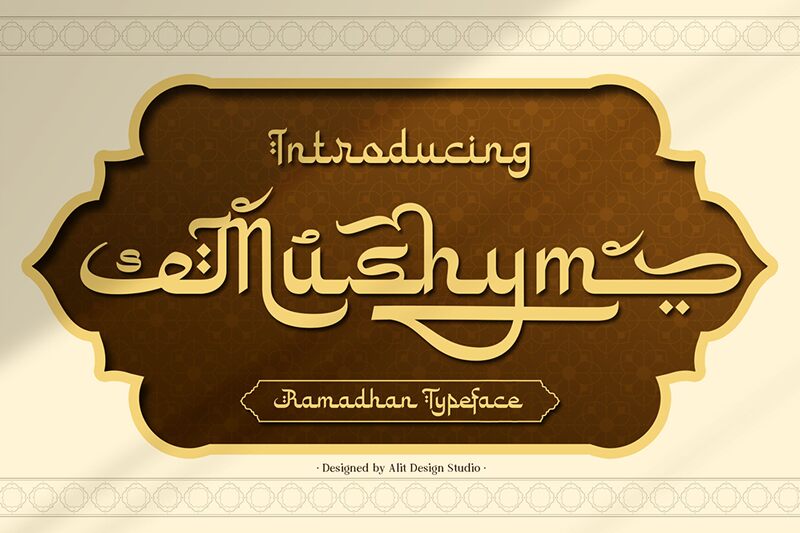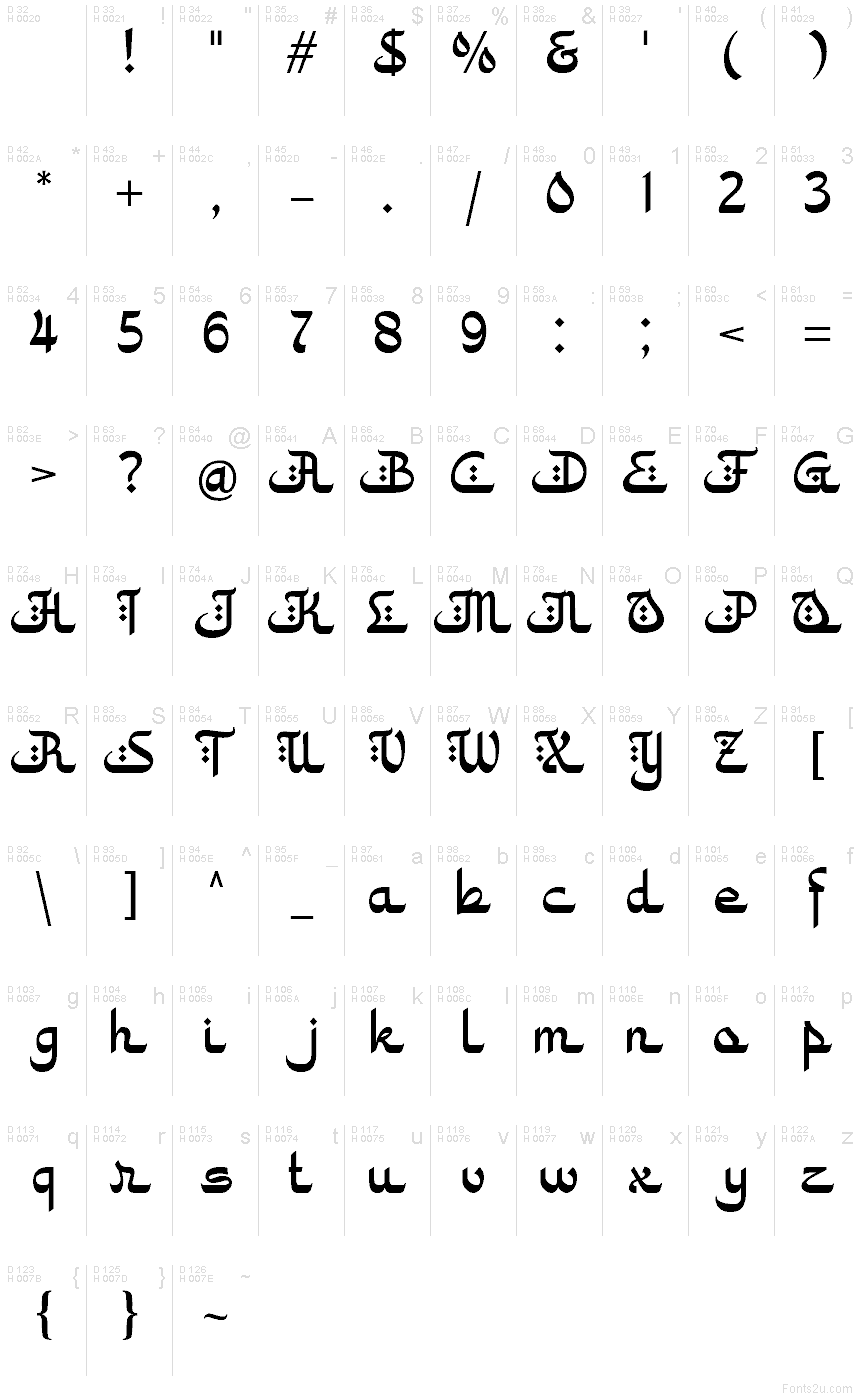
Mushym Regular
Mushym font by Alit Design is a free bold Arabic‑inspired script display font. It stands out with sinuous, inky strokes that swing into crescent curves, diamond‑like dots, and snug, sculpted joins. The rhythm feels hand‑drawn yet steady, giving headlines a rich, ornamental pulse without losing legibility.
Using Mushym, your logotypes and titles pick up a warm, market‑stall energy—great for restaurant branding, festival posters, packaging, menu headers, artisan products, and boutique signage. The sturdy strokes hold up at large sizes, while the soft terminals add character to short phrases. This free font shines on covers and hero graphics; pair it with a light, neutral sans for body copy to let Mushym’s expressive forms lead.